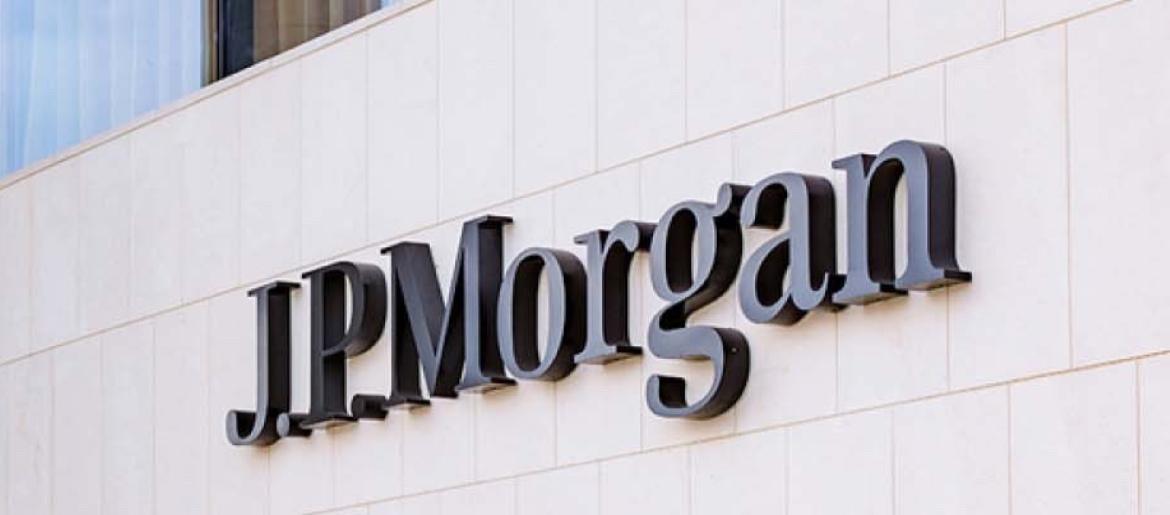
J.P. Morgan Font
The J.P. Morgan Font embodies sophistication, precision, and trust—core values that define one of the world’s most respected financial institutions. The typeface used in the J.P. Morgan logo is a refined serif design, closely resembling Friz Quadrata. Its clean structure and balanced letterforms convey both authority and timeless elegance, making it ideal for corporate communications and brand consistency across all platforms.
This font’s subtle curves and strong serifs highlight the brand’s legacy while maintaining a contemporary appearance suited for the global finance industry. The J.P. Morgan Font stands out for its legibility and refined professionalism, traits that mirror the company’s reputation for stability, integrity, and leadership in banking and investment services.